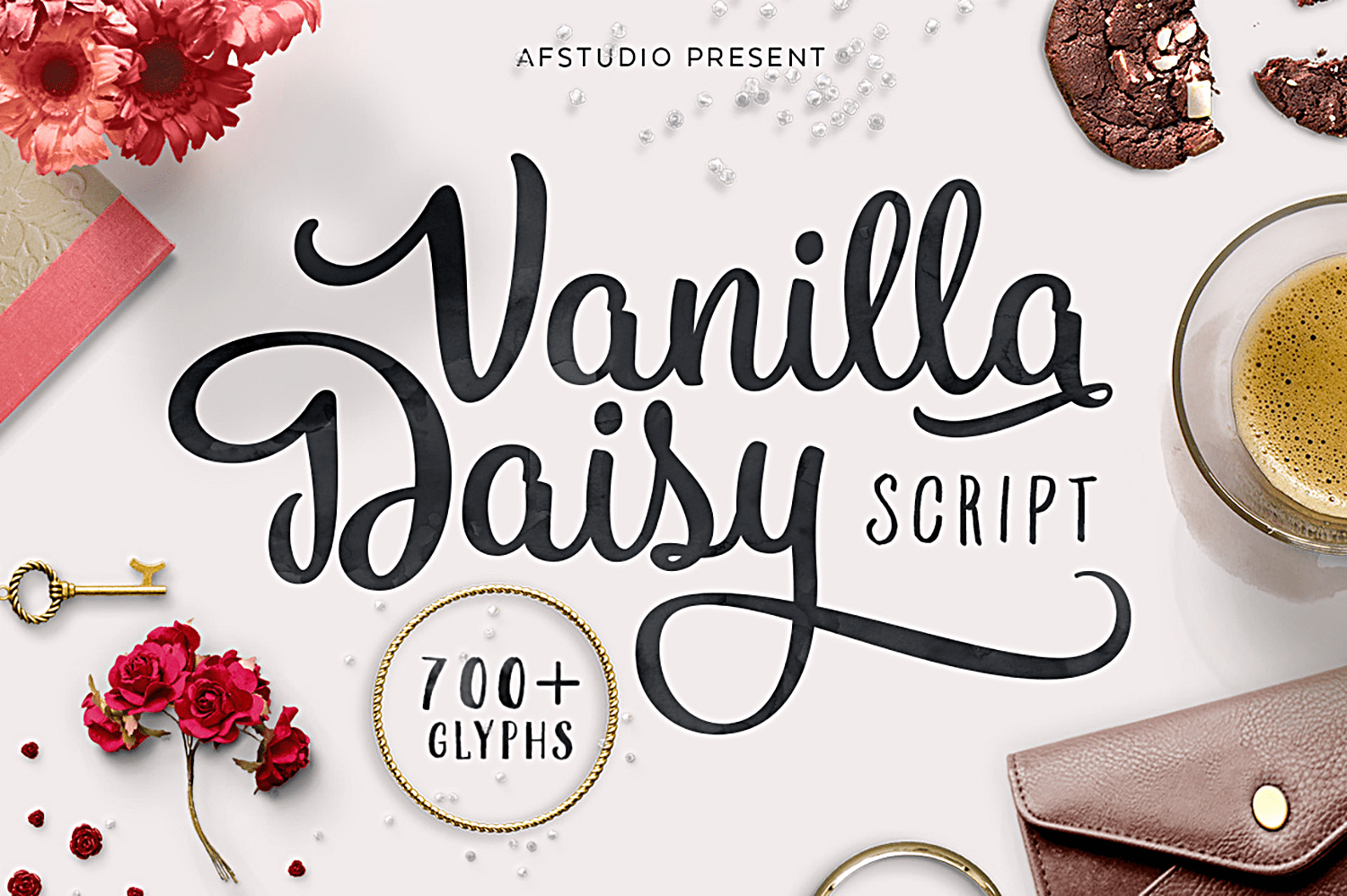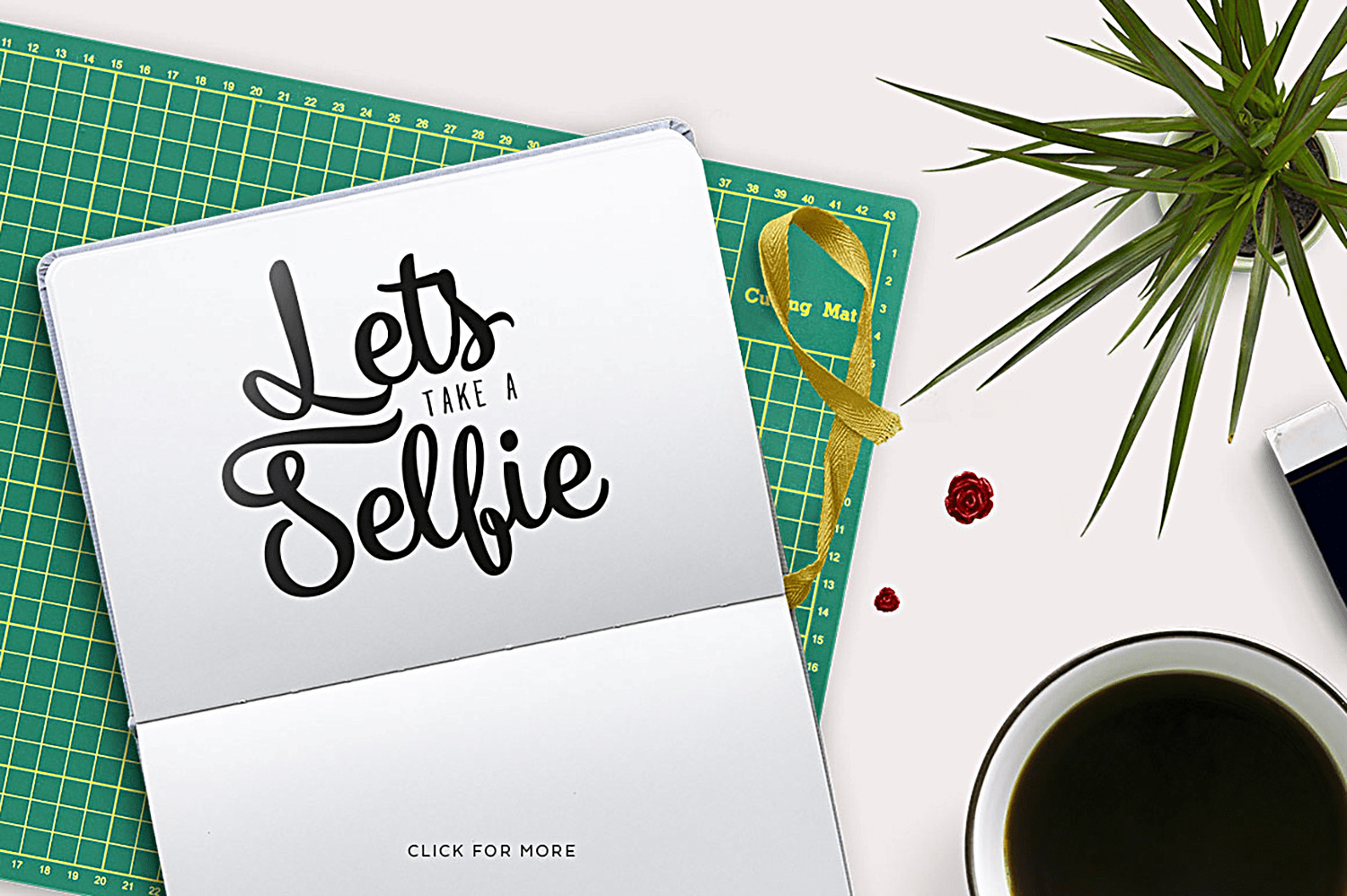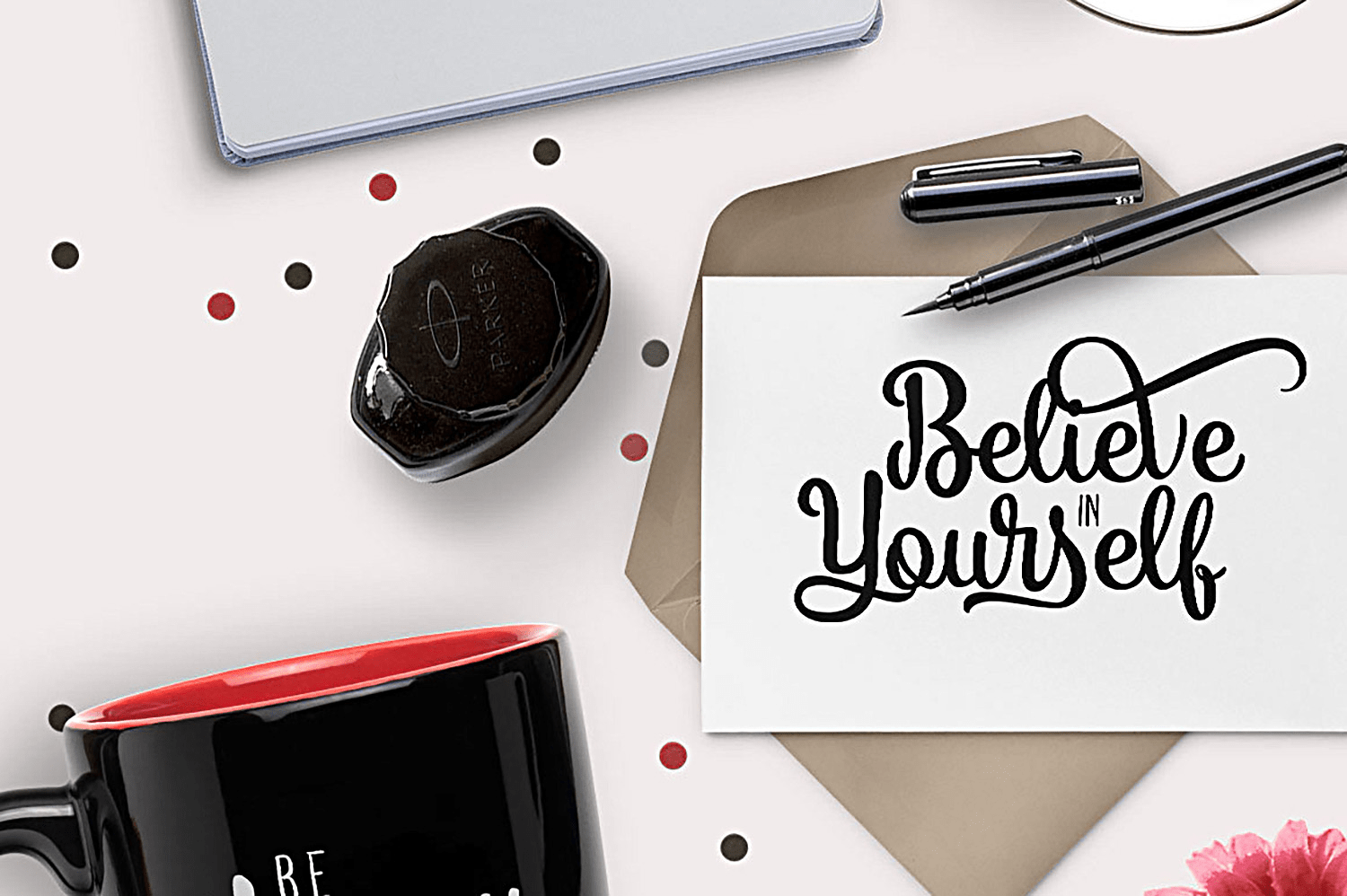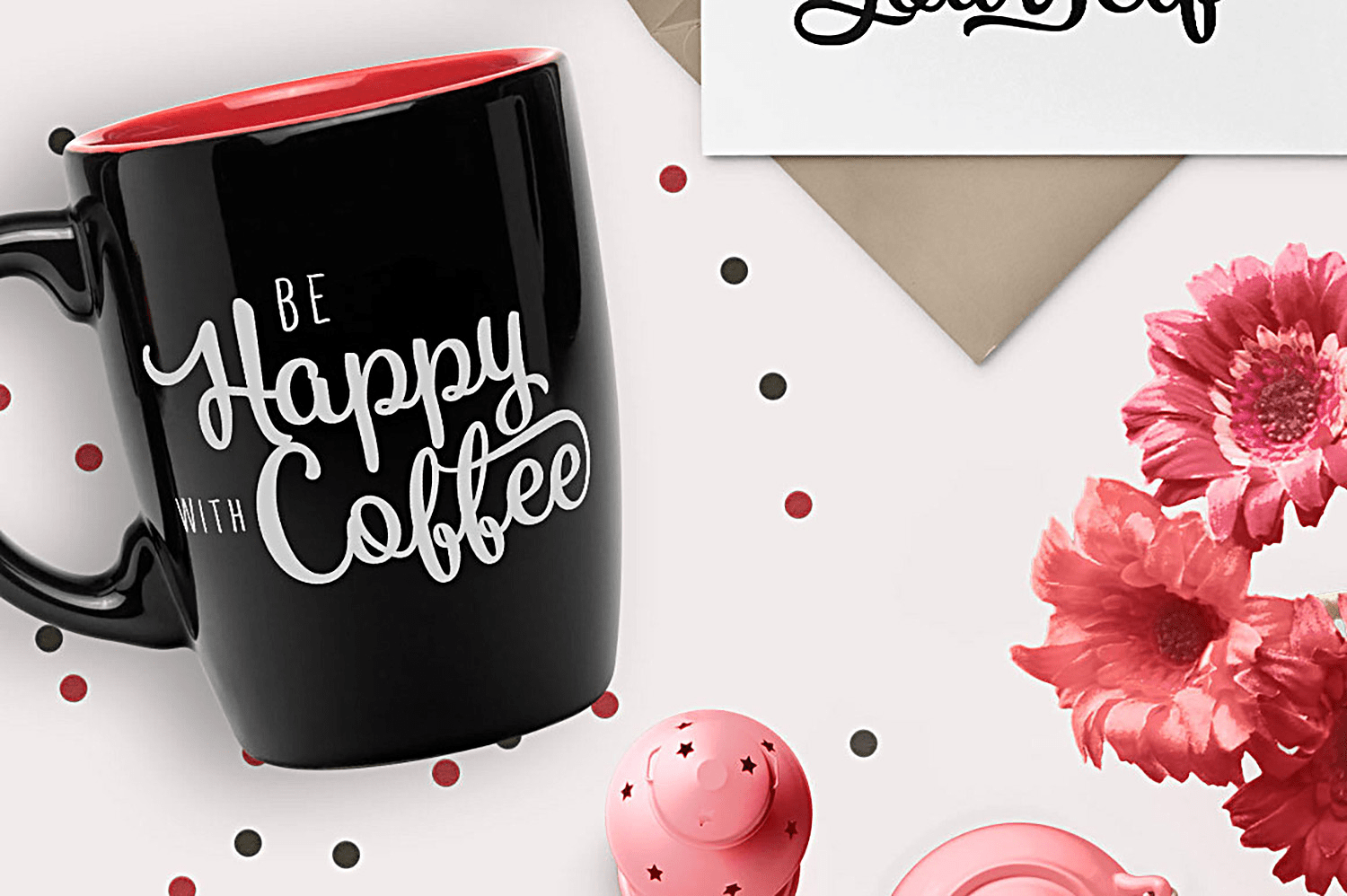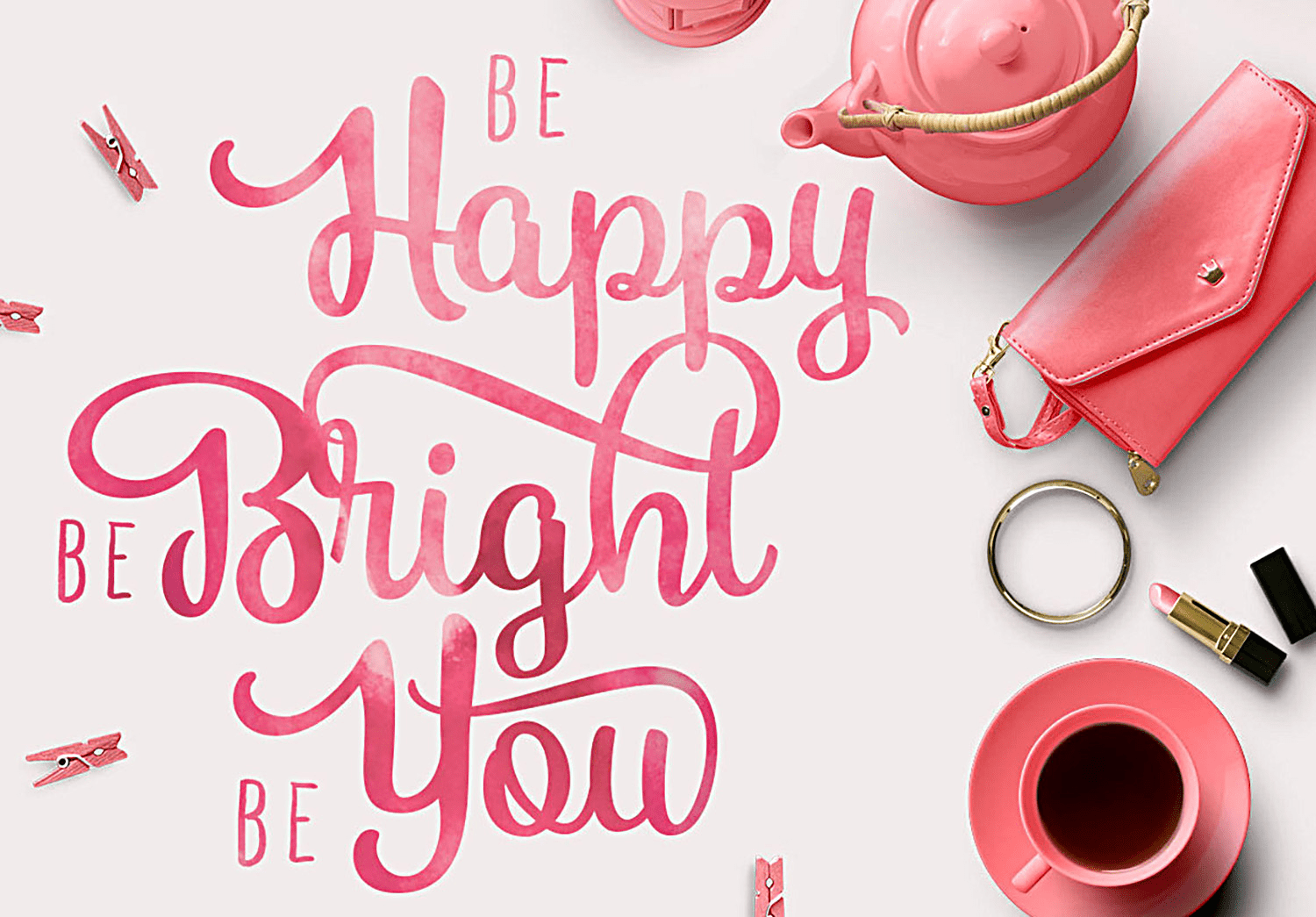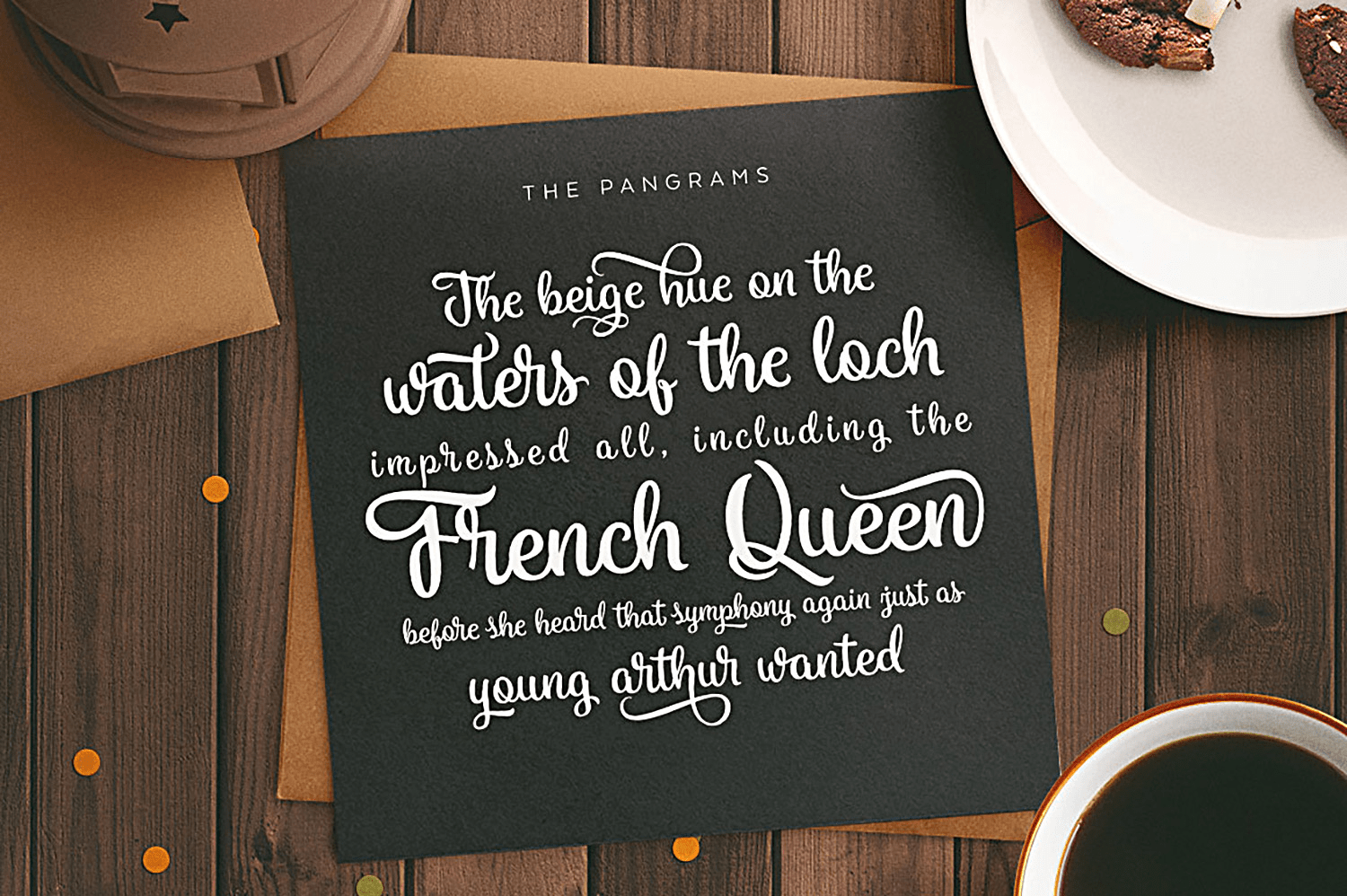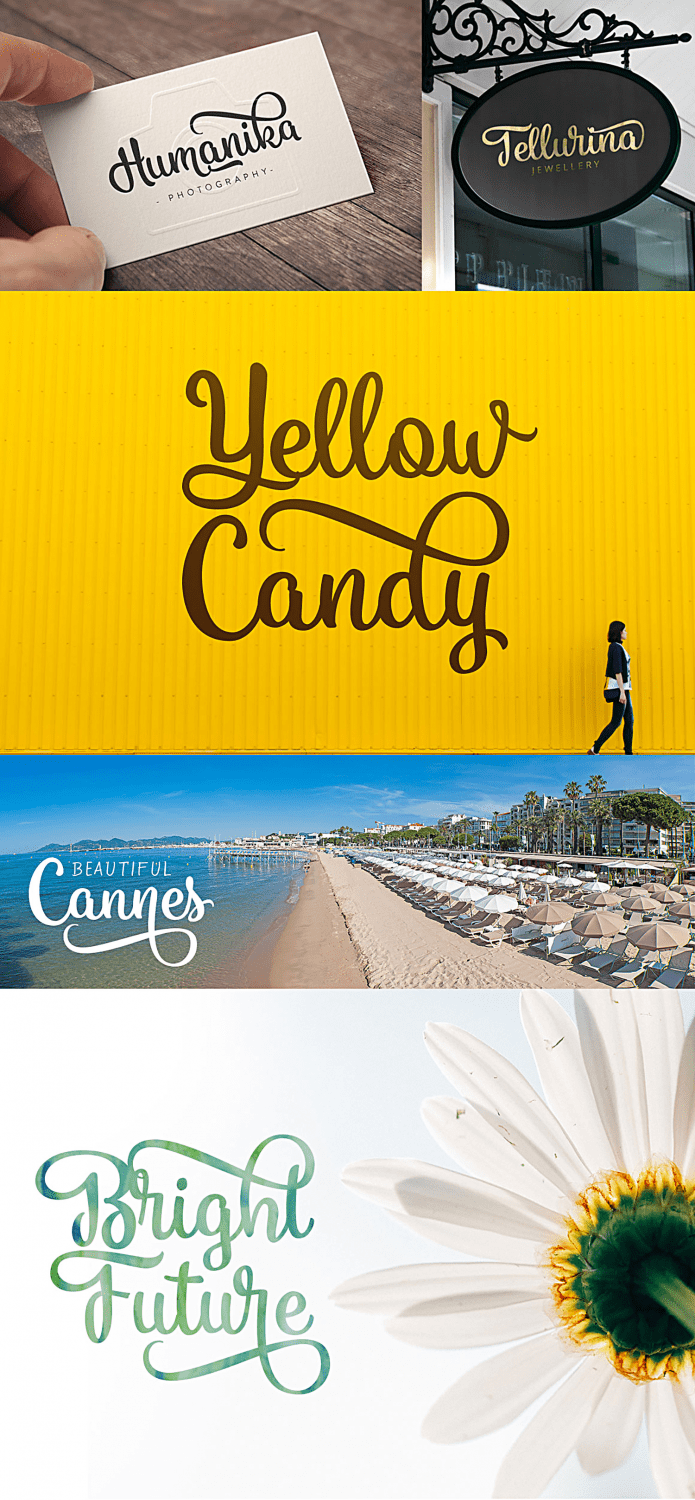
Vanilla Daisy
Finally, after long time creating this one, let me introduce
Vanilla Daisy Script.
Script font that have a huge alternate characters this gives many options to choose the best for you. Inspired by the dynamic style of hand lettering script and created not too feminine or masculine to make it more unlimited style for your lovely work such as : logos, posters, invitation, wedding, artistic design, website header, t-shirt, accessories, souvenir, etc.
Features :
Contextual Alternates
Standard Ligatures
Contextual Swashes
Titling Alternates
The Vanilla Daisy font family includes 748 glyphs.